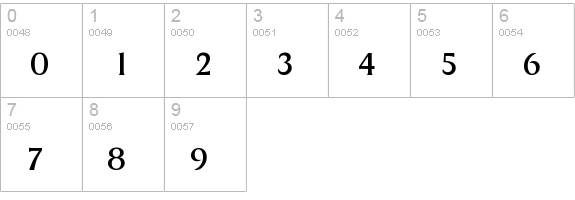
DragonSerial-Regular is the standard, neutral variant in the DragonSerial typeface family \xE2\x80\x94 well suited to general body text, paragraphs, and standard typographic work.
DragonSerial-Regular font is a versatile and stylish typeface that exudes a sense of power and sophistication. With its bold curves and sharp angles, this font is perfect for adding a touch of mystique to your designs. The sleek, modern look of DragonSerial-Regular makes it ideal for a wide range of projects, from branding and advertising to web design and print materials. Best of all, DragonSerial-Regular is completely free to download at FontsMarket.com. Whether you're a professional designer looking to add a unique flair to your work or a hobbyist seeking to experiment with different fonts, DragonSerial-Regular is the perfect choice. Download it today and unleash the power of this captivating typeface in your next project.